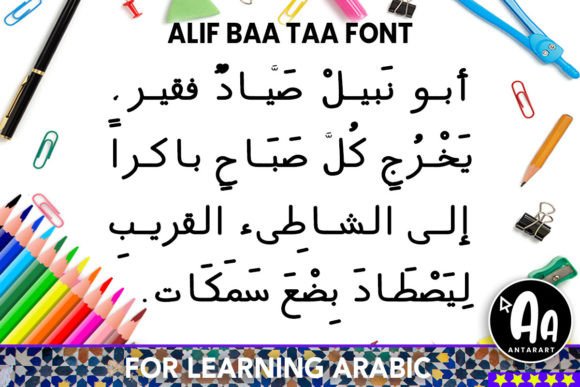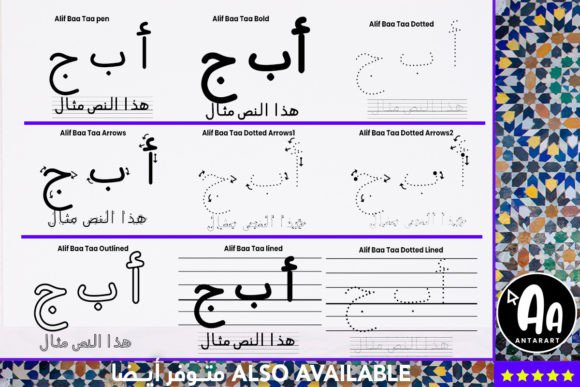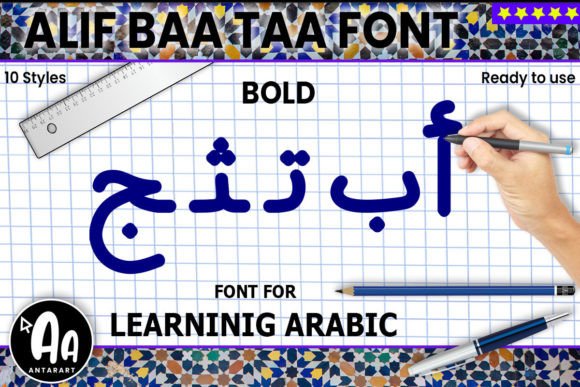
The Alif Baa Taa Bold Font: A Game-Changer for Arabic Language Learners and Designers
I’ll never forget the moment I was working on a project to create Arabic language learning materials for a client. I was struggling to find the right font that would make the worksheets visually appealing and easy to read. That’s when I stumbled upon the Alif Baa Taa Bold Font. It was a eureka moment! ✨ This handwritten Arabic font has been a game-changer for me, and I’m excited to share its benefits with you.
• ✨ Easy to read: The Alif Baa Taa Bold Font is clear and legible, making it perfect for creating worksheets, especially for young learners.
• ✅ Versatile: This font can be used for a variety of projects, from educational materials to creative crafts.
• 🎉 Handwritten style: The font’s handwritten style gives it a personal touch, making it ideal for creating engaging and interactive learning materials.
While the Alif Baa Taa Bold Font is an excellent resource, there are a few things to keep in mind: 🤔
• ⚠️ Limited character set: As a specialized font, it may not have all the characters you need for certain projects.
• ⚠️ Not suitable for all languages: This font is specifically designed for Arabic language learners, so it may not be the best choice for projects in other languages.
The Alif Baa Taa Bold Font was designed with the goal of creating a friendly, approachable font for Arabic language learners. The designer, inspired by traditional Arabic calligraphy, aimed to create a font that would make learning Arabic fun and engaging.
Q: What is the Alif Baa Taa Bold Font?
A: The Alif Baa Taa Bold Font is a handwritten Arabic font designed to help teach and learn Arabic or create thousands of Arabic worksheets using any software.